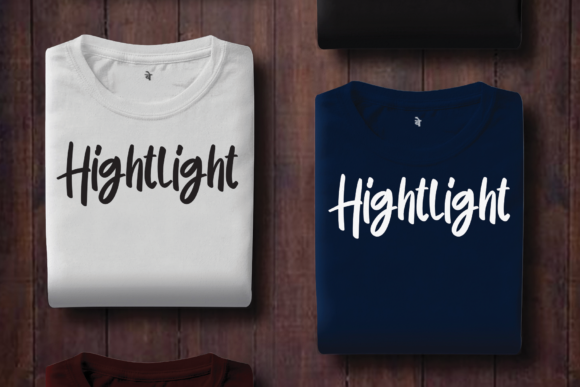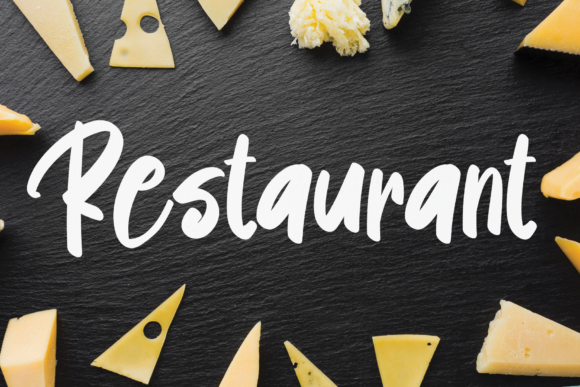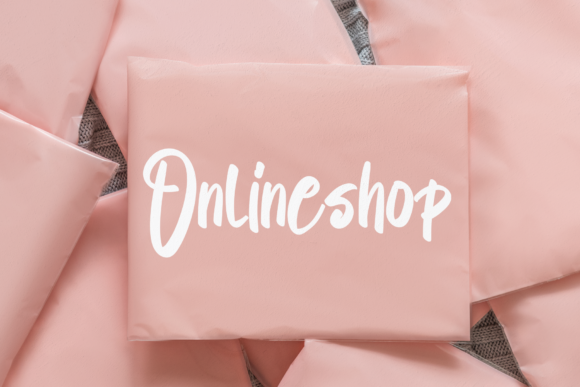
Introduction to Rollinda Font
Have you ever been working on a creative project, pouring your heart and soul into it, only to feel like it’s missing that special something? Maybe it’s the perfect font to bring it all together. That’s where the Rollinda Font comes in – a beautiful, modern handwritten font that’s sure to elevate your design to the next level.
With its high quality and versatility, the Rollinda Font is a valuable addition to any designer’s library. Whether you’re working on a free download project or a paid design gig, this font is sure to impress. Its transparent background makes it easy to customize and pair with other design resources, giving you the creative freedom to bring your vision to life.
Key Features of Rollinda Font
- High-quality, free download font ideal for creative projects, providing a unique design resource.
- Transparent background, allowing for seamless integration with various design elements and backgrounds.
- Includes a comprehensive character set, including uppercase and lowercase letters, numbers, and special characters.
- Designed with a modern and elegant aesthetic, making it suitable for a variety of design applications, from logos to typography.
- Features a high-resolution design, suitable for use at large sizes and in high-resolution print applications.
Honest Review: Rollinda Font
As a designer, I’m always on the lookout for high-quality fonts that can elevate my creative projects. Recently, I stumbled upon the Rollinda Font, and I’m excited to share my thoughts on this design resource.
- Unique and elegant design style
- Transparent background, allowing for seamless integration into designs
- High-quality vector format, perfect for print and digital applications
- Limited character set, which may be a concern for designers who need a wide range of characters
- No bold or italic font weights, which may limit its use in certain design scenarios
Overall, I’m impressed with the Rollinda Font. While it may have some limitations, its unique design style and high-quality format make it a valuable addition to any designer’s toolkit. Whether you’re working on a creative project or just need a reliable design resource, the Rollinda Font is definitely worth checking out.
Rollinda Font
The Rollinda Font is a high-quality design resource perfect for creative projects. It is available for free download and offers a transparent background, making it ideal for various design applications.
Tips for Getting the Most Out of Rollinda Font
To get the most out of the Rollinda Font, use it in combination with other high-quality design resources. Experiment with different font sizes, colors, and arrangements to create unique and eye-catching designs.
The Rollinda Font is ideal for various design applications, including:
- Brochures and flyers
- Website headers and footers